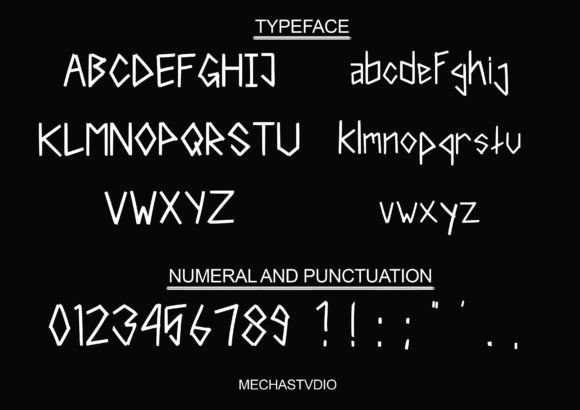
Introduction to Plester Punk Font
Have you ever stared at a blank canvas, waiting for that spark of creativity to strike? For designers, those moments can be the most exhilarating – and sometimes the most daunting. But what if you had the perfect tool to kickstart your next project? Enter the Plester Punk Font, a bold and fearless display font that’s ready to take your creative project to the next level.
With its edgy vibe and high-quality design, the Plester Punk Font is a game-changer for designers looking to make a statement. Whether you’re working on a product packaging project, a branding campaign, or a social media post, this font is sure to turn heads. And the best part? It’s available for free download, making it an invaluable design resource for creatives on a budget.
Imagine being able to express your brand’s personality with a single font – one that exudes confidence and attitude, with a transparent background that lets your design shine. That’s what the Plester Punk Font offers, and it’s an absolute must-have for any designer looking to elevate their work.
Key Features of Plester Punk Font
- Unique, hand-drawn design with a punk aesthetic, perfect for creative projects that require a bold and edgy look.
- High-quality font with transparent background, ideal for graphic designers and artists who need a versatile design resource.
Honest Review: Plester Punk Font
I recently stumbled upon the Plester Punk Font, a free download that caught my attention due to its unique aesthetic. As a designer, I appreciate the diversity of design resources available online, and this font is a great addition to any creative project.
- ✨ The font’s distressed, punk-inspired look is perfect for adding an edgy touch to designs.
- ✨ The transparent background makes it easy to use in combination with other design elements.
- ✨ High-quality design ensures that the font looks great at various sizes and resolutions.
- ⚠️ The font may not be suitable for projects that require a more formal or professional look.
- ⚠️ Some users may find the font’s punk aesthetic too extreme or overwhelming.
Overall, I’m impressed with the Plester Punk Font’s potential to add a unique touch to designs. While it may not be suitable for every project, it’s a valuable resource for designers looking to inject some personality into their work.
Plester Punk Font
The Plester Punk Font is a unique and eye-catching design resource that can add a creative touch to your projects. It is available for free download and can be used with a transparent background, making it perfect for overlaying on top of images or other design elements.
The Plester Punk Font is perfect for use in creative projects such as social media graphics, posters, and flyers.
It is also great for use in branding and marketing materials, such as logos and business cards.